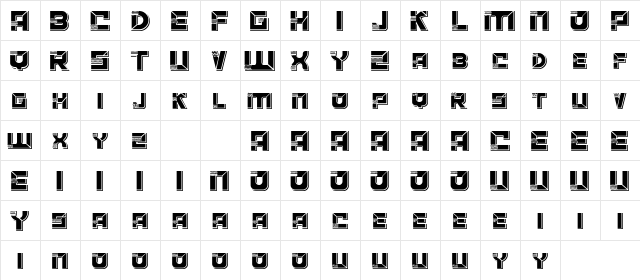
ACCELERARE Demo Shadow Regular
Design Context for ACCELERARE Demo Shadow Typeface
ACCELERARE Demo Shadow is built around its visual character rather than neutral utility — its distinctive forms are designed to make an impression at display sizes.
Font Pairing: Pair with a clean neutral sans-serif for body copy to let ACCELERARE Demo Shadow's character lead without overwhelming the composition.
Pro Tip: Use ACCELERARE Demo Shadow exclusively at display sizes — it was designed to be seen, not read at length. Let a neutral companion handle body copy.